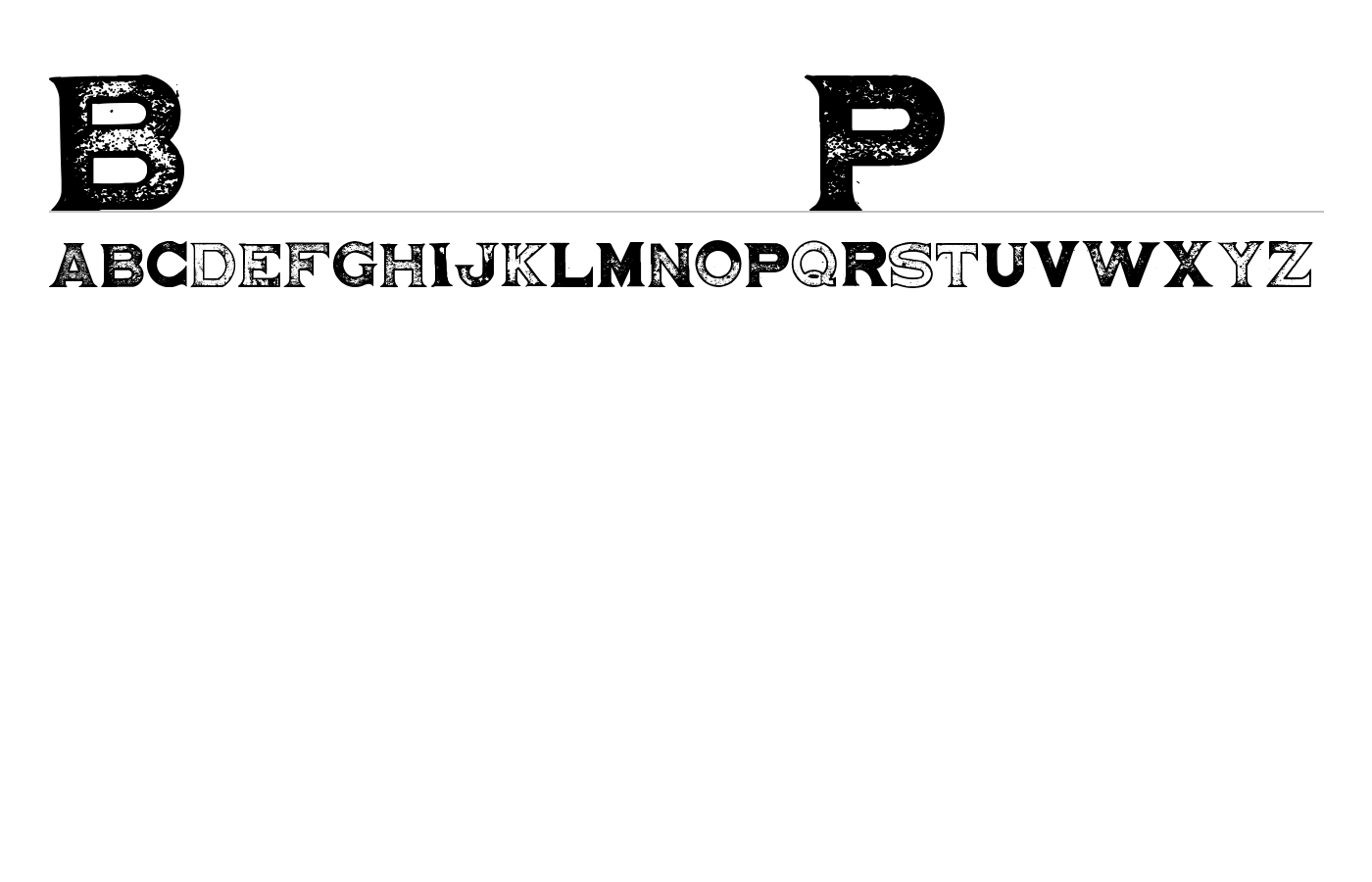
Brighton Pier is a bold slab serif font with a vintage, distressed texture that gives it a rustic and worn appearance. Its strong, blocky letterforms combined with unique roughened edges make it perfect for creating eye-catching headlines, logos, and packaging that evoke a nostalgic, maritime, or retro carnival vibe. This font works well in designs aiming for a playful yet sturdy character with a handcrafted feel.
Brighton Pier Font
About Brighton Pier Font